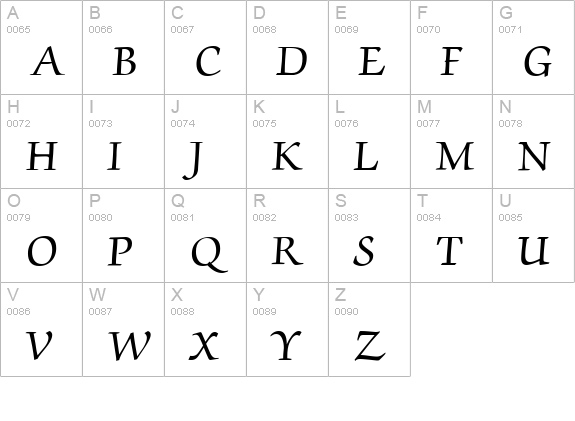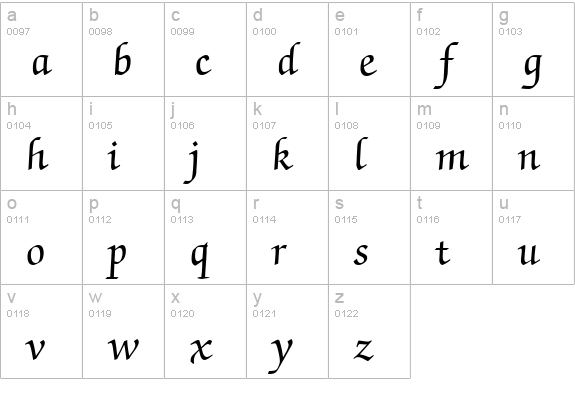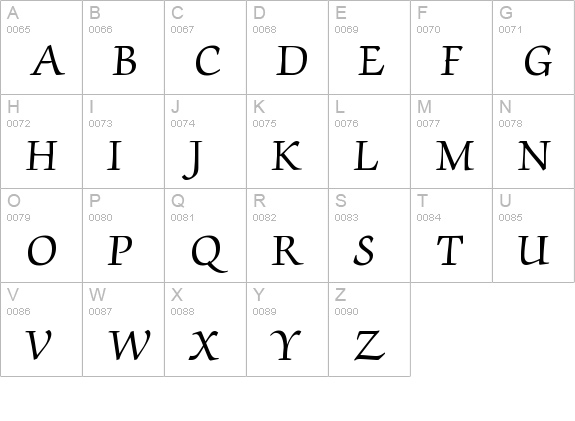
ZabriskieScript-Bold Font Details
ZabriskieScript-Bold is a strong, high-contrast variant in the ZabriskieScript typeface family \xE2\x80\x94 well suited to headlines, attention-grabbing titles, and strong calls-to-action.
ZabriskieScript-Bold is a stunning display font that exudes elegance and sophistication. Its bold, flowing strokes make it perfect for creating eye-catching designs that demand attention. This font is ideal for logos, branding, packaging, posters, and more. The best part? ZabriskieScript-Bold is available for free download at FontsMarket.com. Now you can elevate your projects with this beautiful font without breaking the bank. Don't miss out on the opportunity to add ZabriskieScript-Bold to your font collection today!